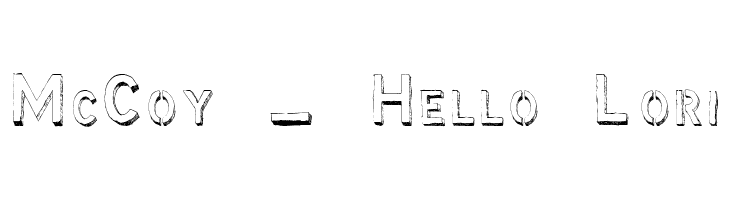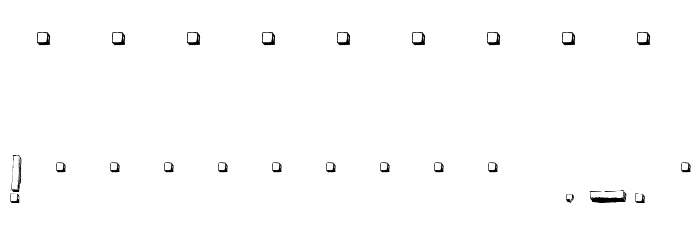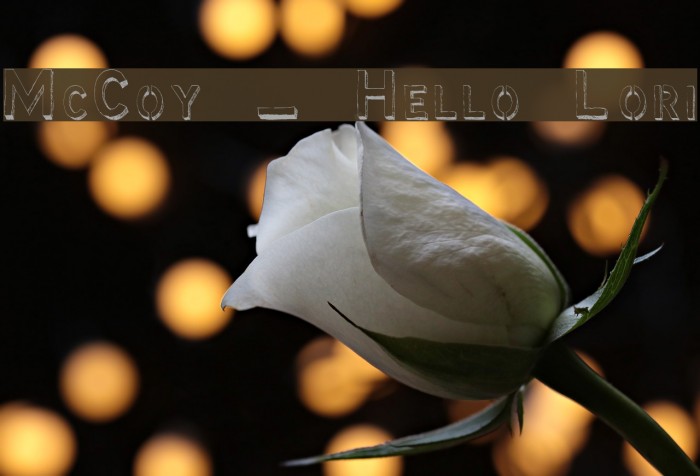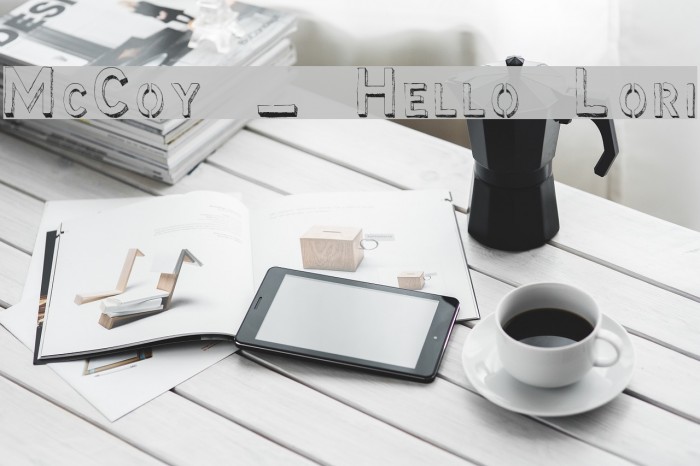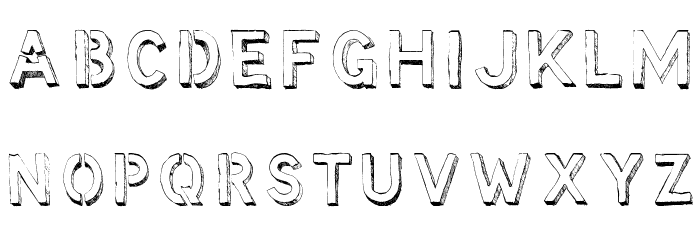
McCoy - Hello Lori Font
McCoy - Hello Lori Description
This font features a bold, three-dimensional appearance with a shadow effect that gives each character a sense of depth and solidity. The uppercase letters are robust and slightly condensed, with a hand-drawn aesthetic that adds a touch of vintage charm. The characters have a consistent stroke width, contributing to a uniform look across the alphabet. The design includes subtle imperfections, enhancing its handcrafted feel. This font is ideal for creating eye-catching headlines or logos that require a distinctive and artistic touch. Its unique style makes it suitable for projects that aim to convey a sense of creativity and individuality.
| Width | Condensed |
| Overall Style | Vintage |
| Proposed Projects | Ideal for vintage-themed posters, creative logos, and eye-catching headlines. |